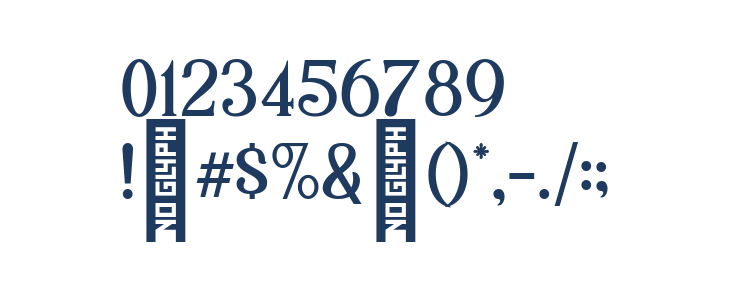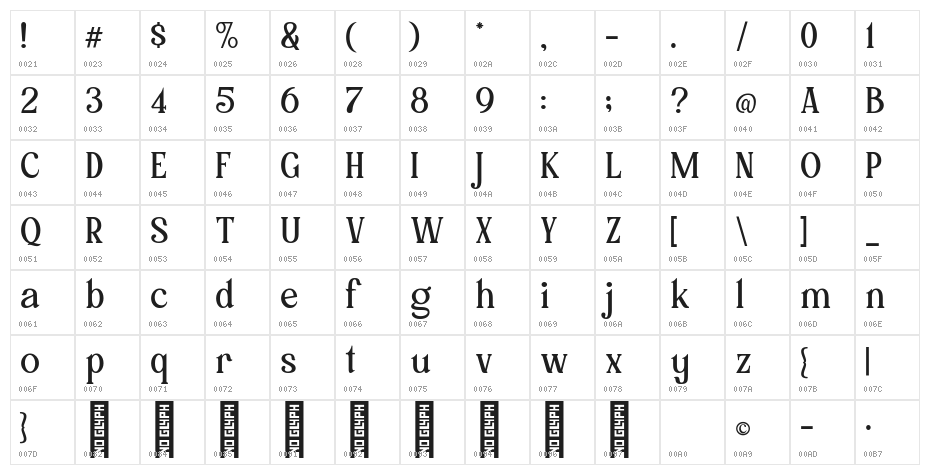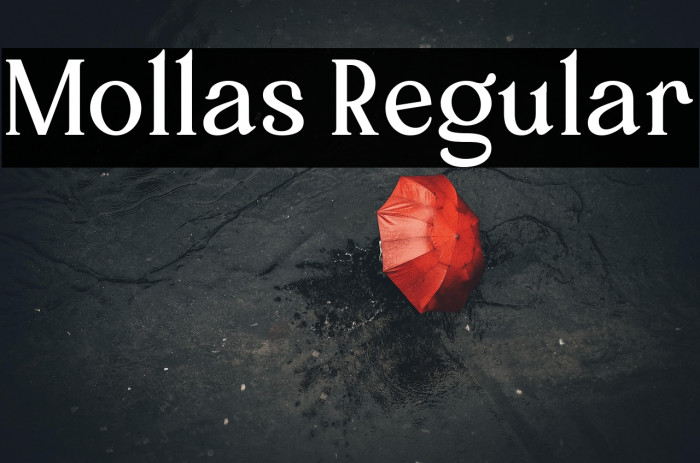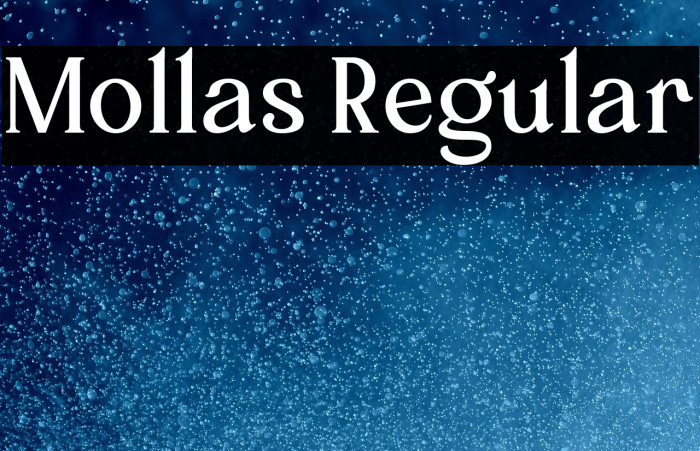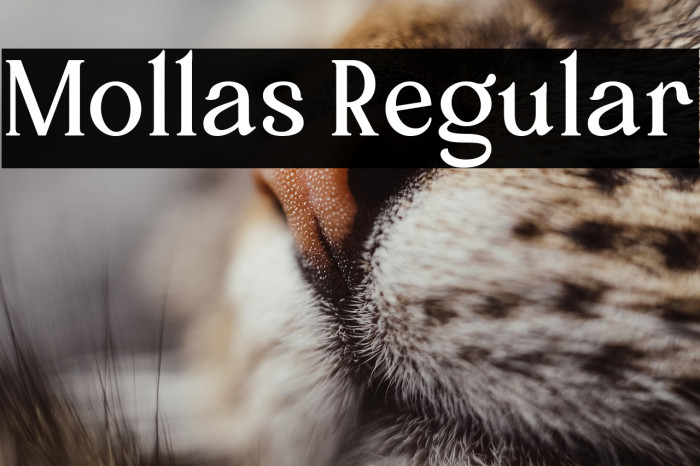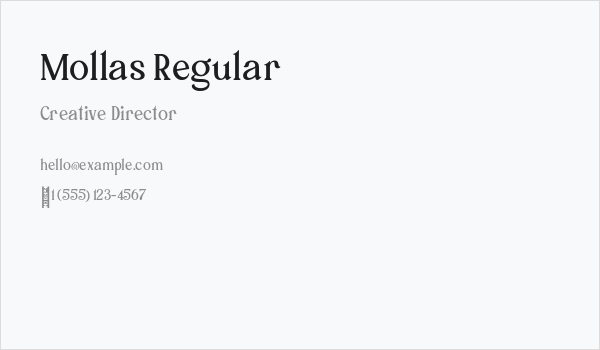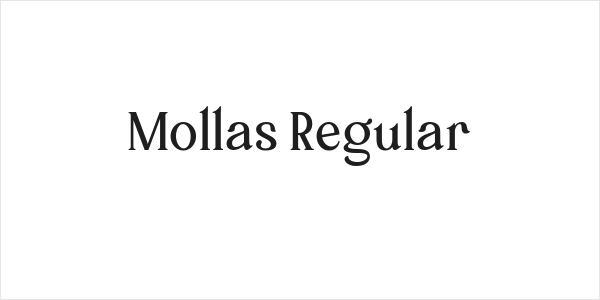
Mollas Regular Font
Mollas Regular Description
This font features a classic serif style with a modern twist, characterized by its elegant and refined letterforms. The serifs are pronounced, adding a touch of sophistication and readability. The uppercase letters are bold and commanding, while the lowercase letters maintain a smooth and flowing appearance. The numerals are distinct and well-proportioned, ensuring clarity in numerical data. Special characters are thoughtfully designed, maintaining the overall aesthetic of the font. This font is versatile, suitable for both digital and print media, and can be used to convey a sense of tradition and reliability.